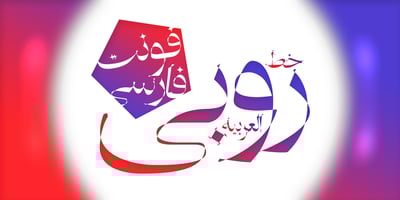
Persian Ruby Font Family was designed by Shahab Siavash and published by Si47ash Fonts. Persian Ruby contains 1 styles and family package options. It’s not fragile, it’s delicate! 😀 A Arabic font (Persian typeface), as a gift for you type lovers!This font does not support any Latin characters. Just Persian and Arabic.You can get this font for free by buying another Si47ash Font: https://www.myfonts.com/foundry/si47ash-fonts/Let me know when you did it and I will send you a promo-code: shahabsiavash [at] gmail [dot] com